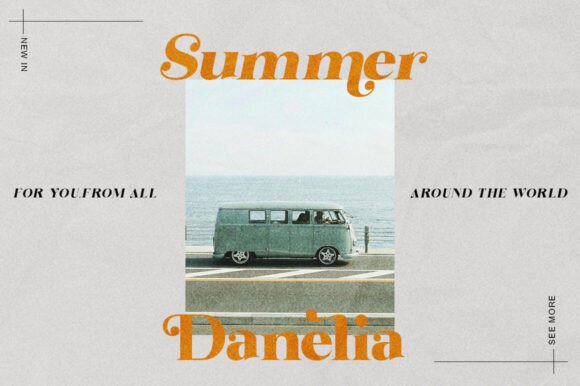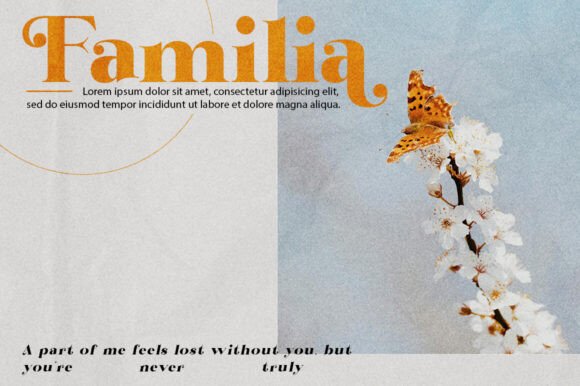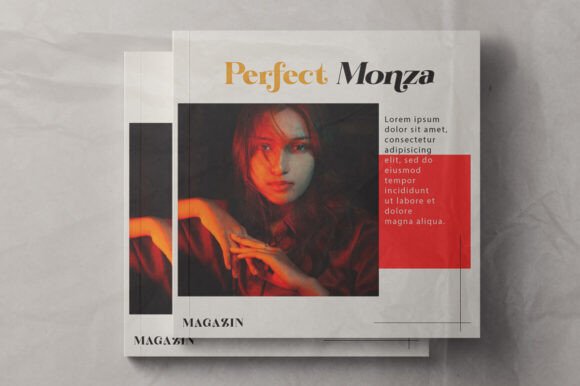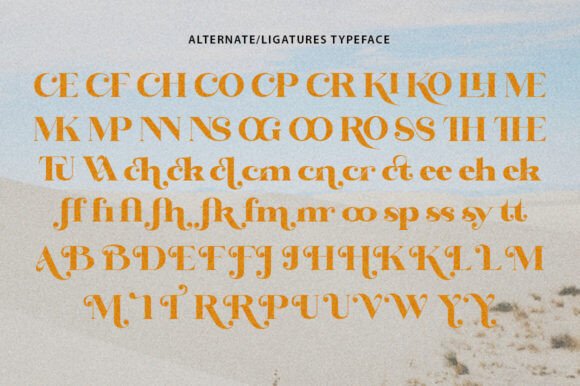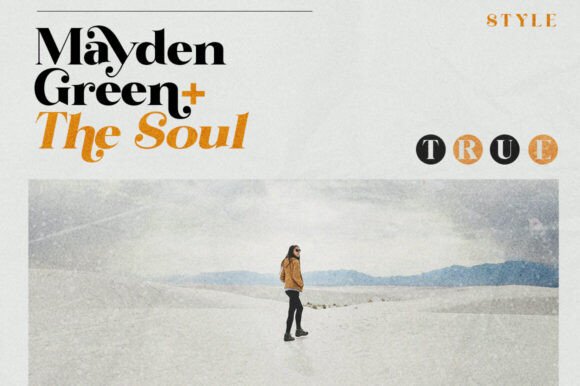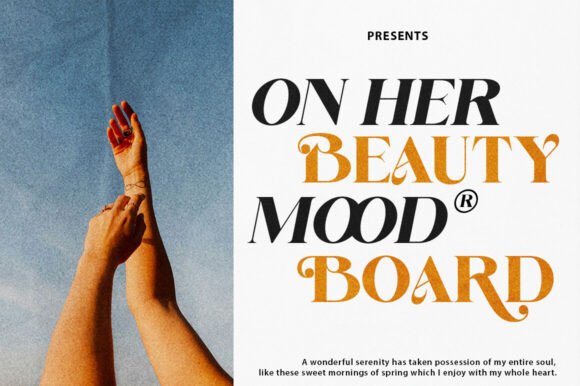
Bintro Font: Elevate Your Design with Elegance and Sophistication
In the world of typography, the right font can make all the difference in conveying the intended message and aesthetic of a design project. For those seeking a typeface that exudes elegance, classic charm, and a touch of sophistication, the Bintro font is an excellent choice. This serif typeface has gained popularity among designers and crafters for its distinctive features and versatility, making it suitable for a wide range of applications, from editorial design and branding to creative projects that demand a luxurious and professional impression.
Characteristics of the Bintro Font
The Bintro font is characterized by its elegant, classic, and sophisticated style, which is primarily attributed to its serif design. Serifs are the small decorative strokes or flourishes at the edges of letters, which not only add a touch of refinement but also guide the eye along the text, enhancing readability. The Bintro font’s serifs are carefully crafted to provide a balanced and harmonious look, making it perfect for designs that require a high level of visual appeal.
Uses of the Bintro Font
The Bintro font’s versatility is one of its most appealing aspects. It is commonly used for:
- Headlines: The font’s bold and elegant appearance makes it an excellent choice for headlines, titles, and captions that need to grab attention and convey a sense of luxury.
- Logos: The distinctive serifs and classic style of the Bintro font make it suitable for logos and branding elements that require a sophisticated and professional look.
- Editorial Design: The font’s readability and aesthetic appeal make it perfect for use in magazines, newspapers, and other editorial materials where a high level of visual appeal is desired.
- Creative Projects: Whether it’s for packaging, advertising, or digital media, the Bintro font can add a touch of elegance and sophistication to any creative project.
Why Choose the Bintro Font?
There are several reasons why designers and crafters choose the Bintro font for their projects:
- Elegance and Sophistication: The Bintro font’s classic style and elegant appearance make it an excellent choice for designs that require a sophisticated and luxurious look.
- Versatility: The font’s versatility makes it suitable for a wide range of applications, from editorial design to branding and creative projects.
- Readability: The carefully crafted serifs and balanced design of the Bintro font ensure excellent readability, making it perfect for both headings and body text.
- Unique Character: The Bintro font’s distinctive serifs and classic style give it a unique character that sets it apart from other typefaces.
Tips for Using the Bintro Font
To get the most out of the Bintro font, consider the following tips:
- Pair with Sans-Serif Fonts: Pairing the Bintro font with sans-serif fonts can create a beautiful contrast and add visual interest to your design.
- Use for Headings and Titles: The Bintro font’s bold and elegant appearance makes it perfect for headings and titles, while a sans-serif font can be used for body text.
- Experiment with Font Sizes: Experimenting with different font sizes can help create a visually appealing hierarchy of information and add depth to your design.
The Bintro font is a versatile and elegant typeface that can elevate any design project with its classic style and sophisticated appearance. Its distinctive serifs, excellent readability, and unique character make it an excellent choice for designers and crafters seeking to convey a luxurious and professional impression. Whether you’re working on editorial design, branding, or creative projects, the Bintro font is sure to make a lasting impression.